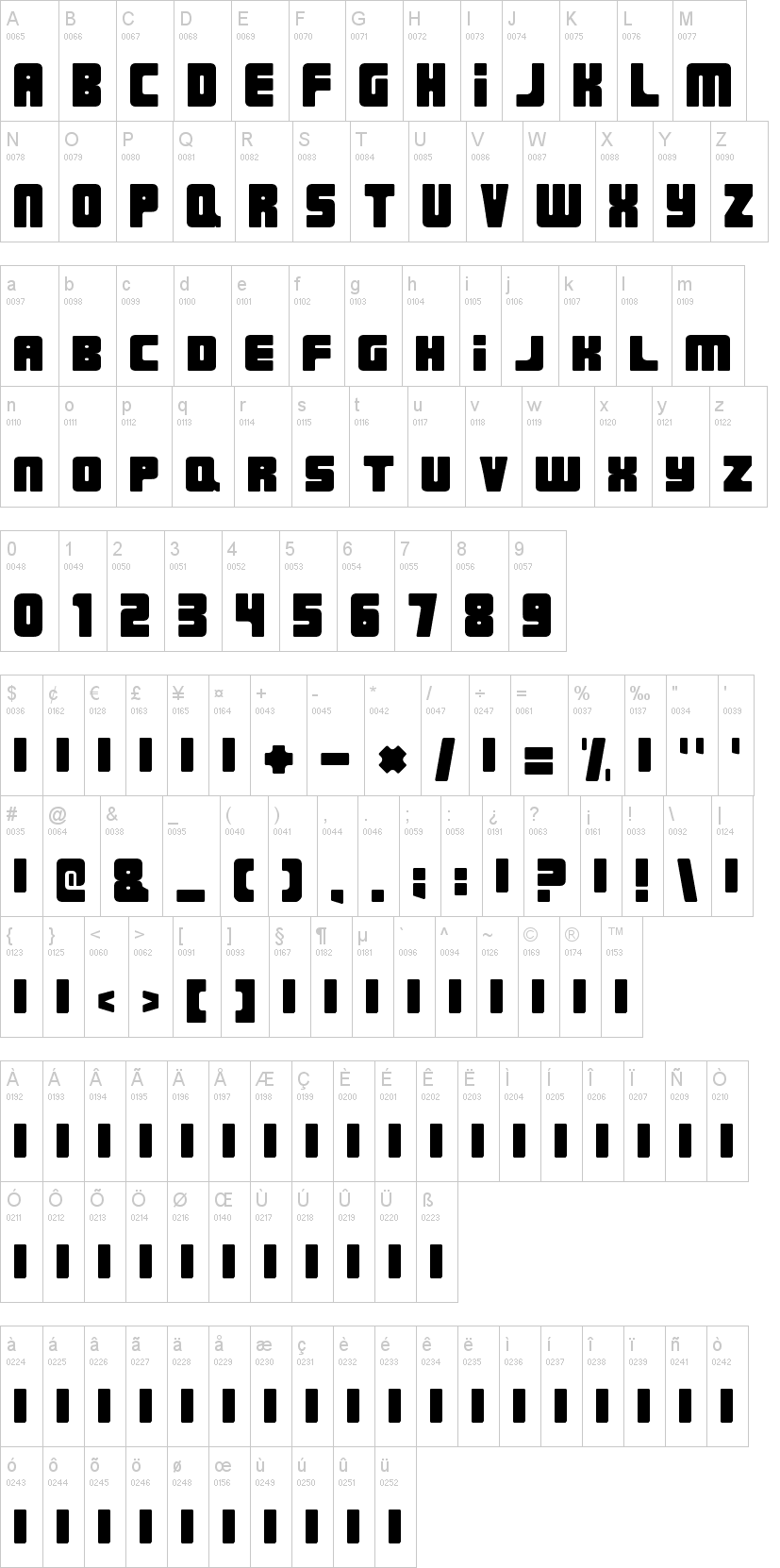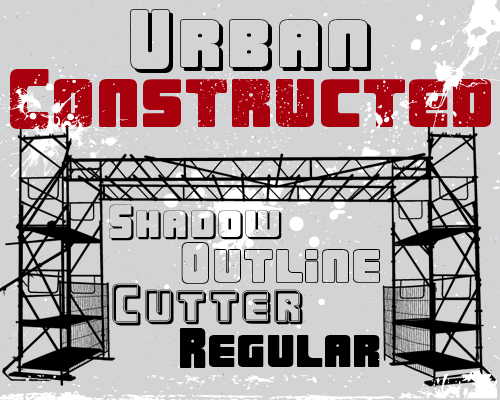
Шрифт Urban Constructed
Urban Constructed is a Font Nils von Blanc (www.nils-von-blanc.de).
The Font was inspired by Jakob Fischer / PizzaDude and his "Nonstop" Font.